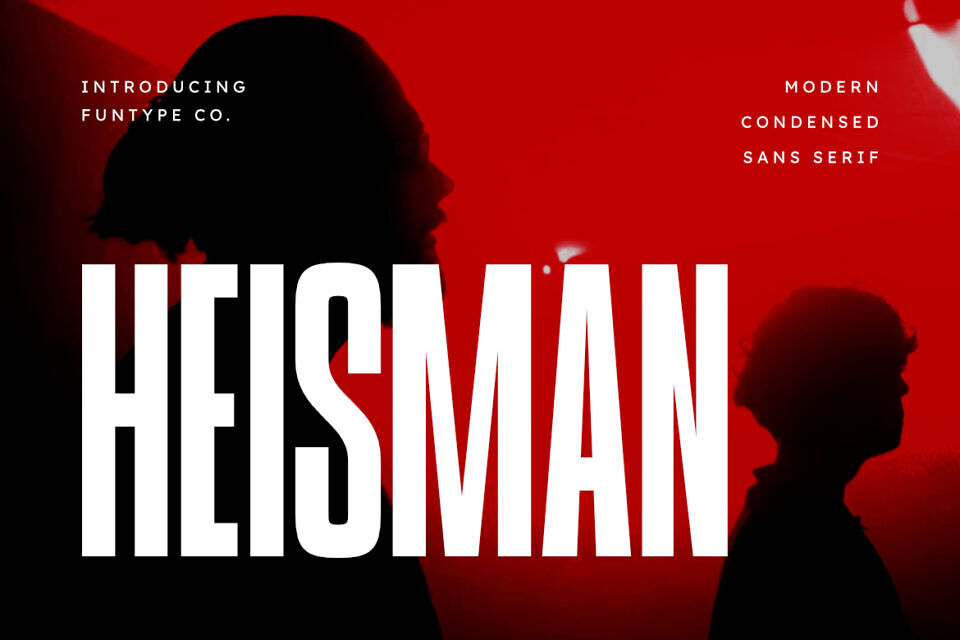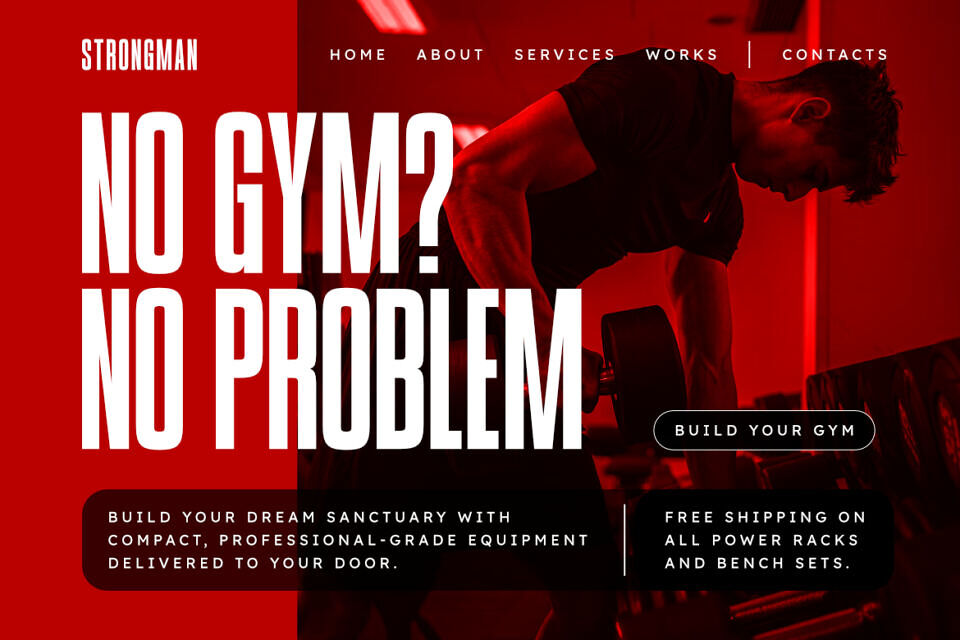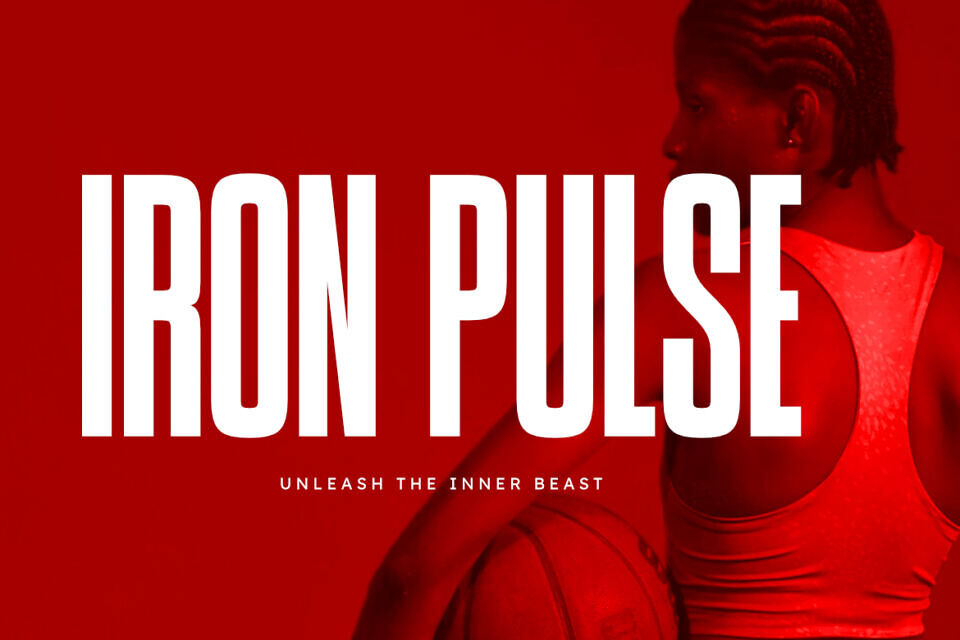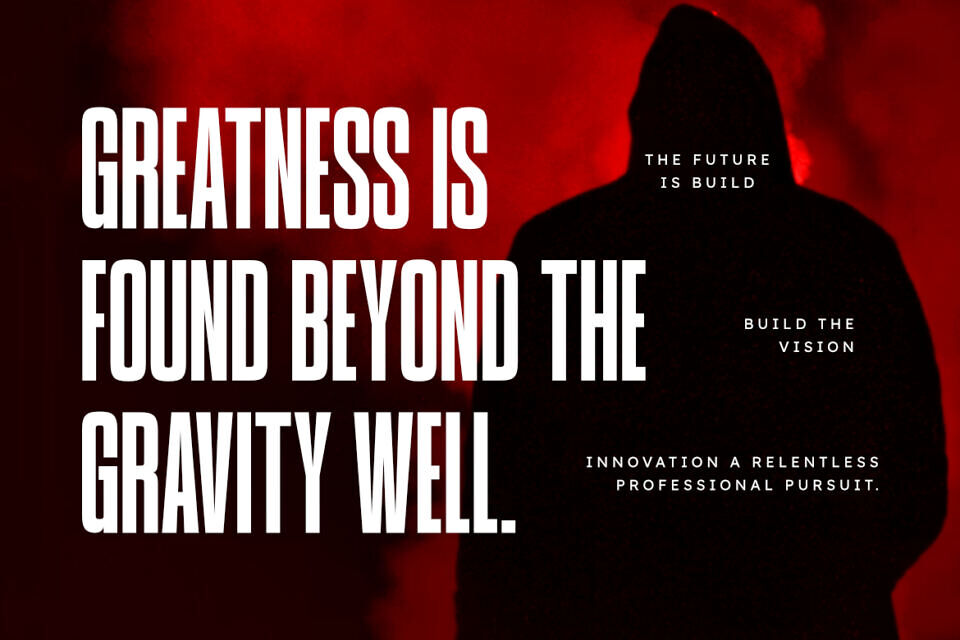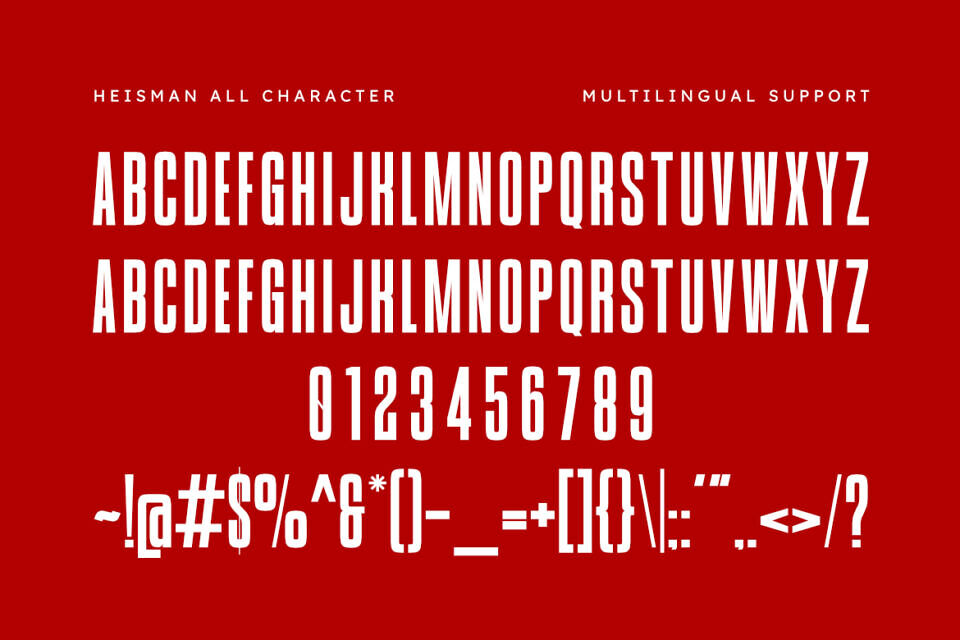
Heisman is a sophisticated and powerful modern condensed sans serif font, thoughtfully designed to capture the essence of vertical impact and contemporary storytelling. With its tall, sleek structure and clean geometric lines, Heisman offers a professional aesthetic that brings a touch of commanding presence to any creative project.
Whether you are crafting a striking sports logo, a sleek cinematic title, or bold editorial layouts, Heisman provides a seamless blend of modern edge and digital authority.